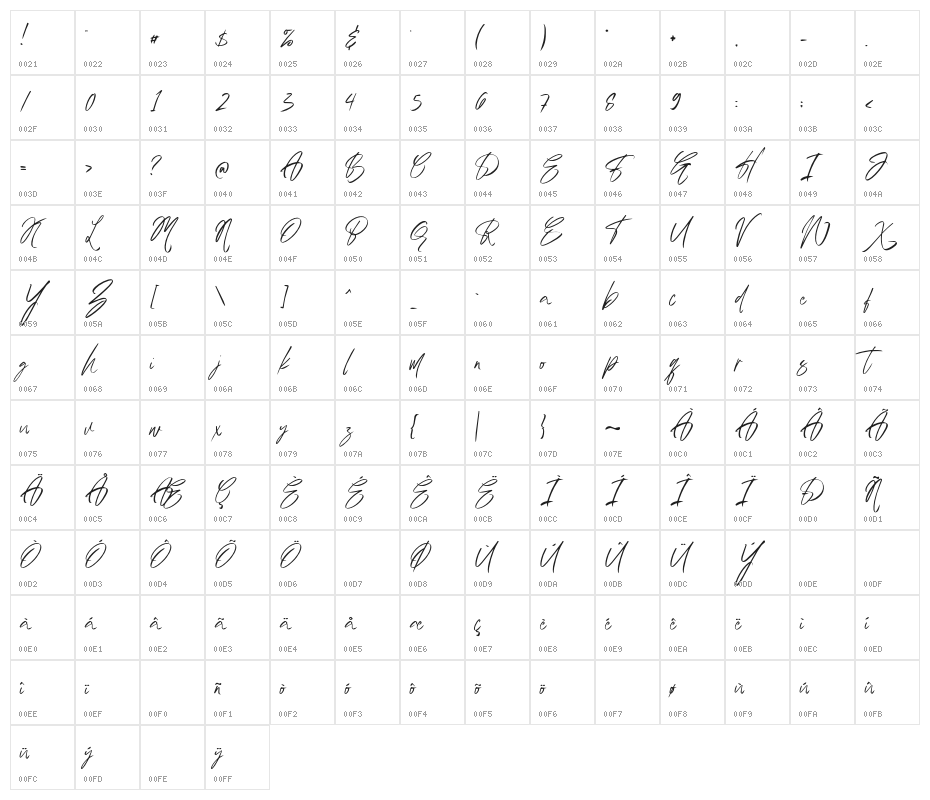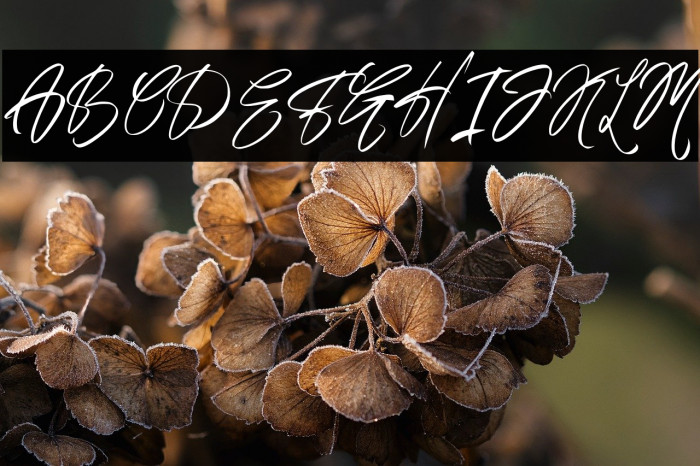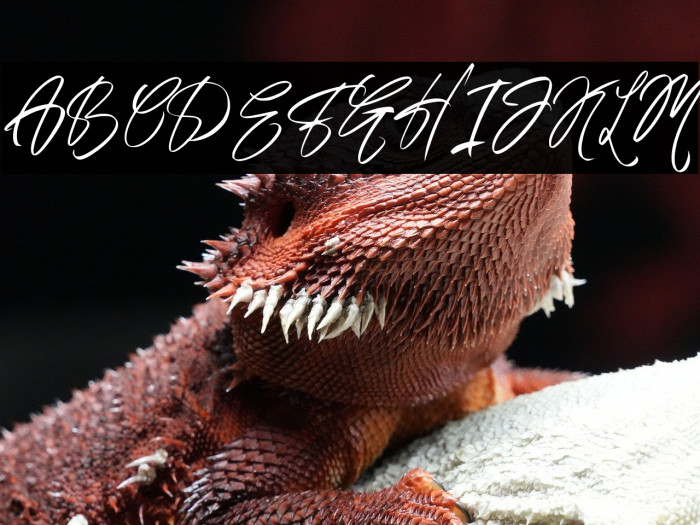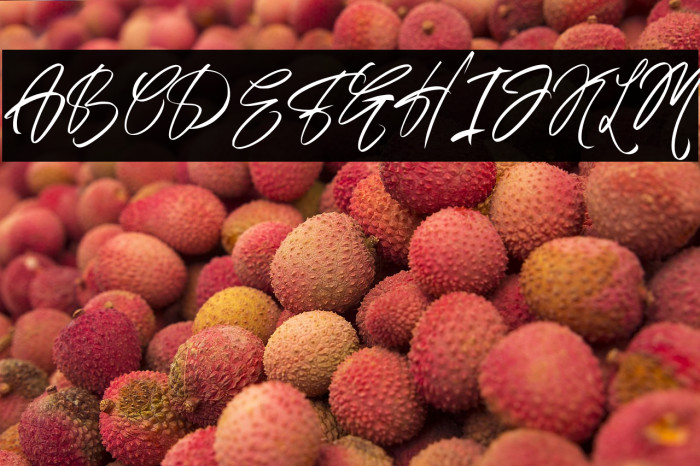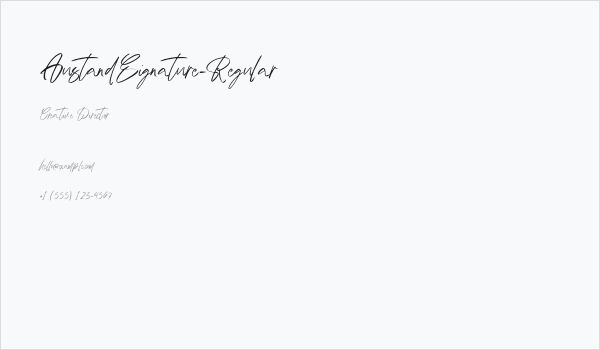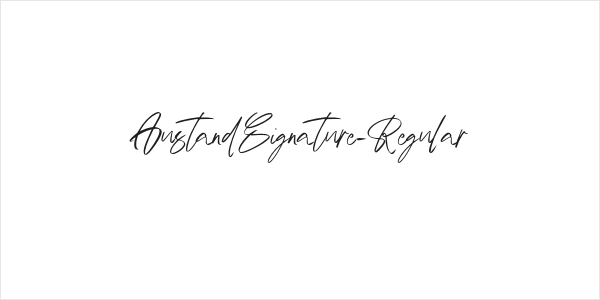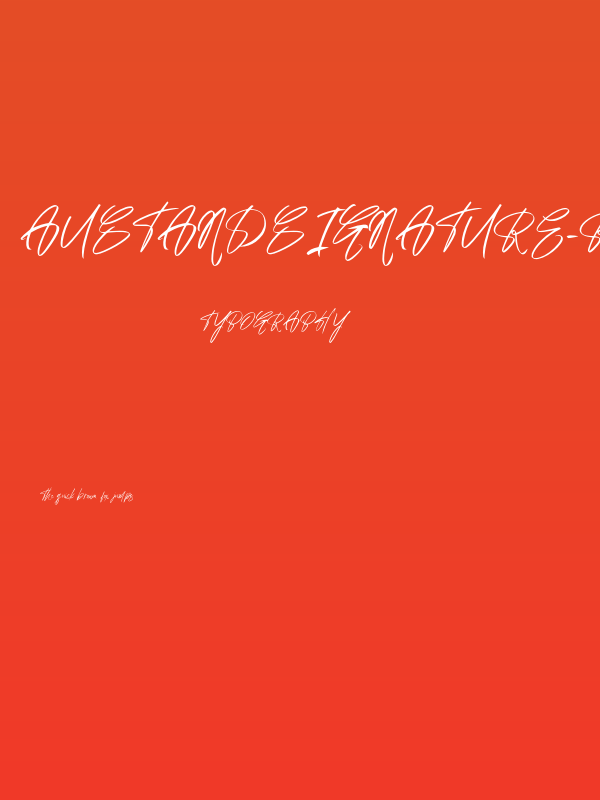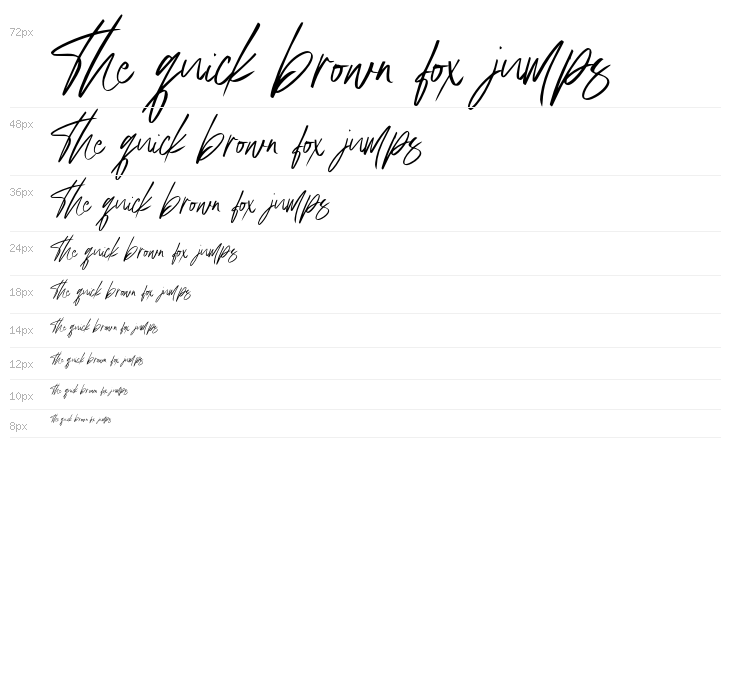
AustandSignature-Regular Font
AustandSignature-Regular Description
This font exudes a dynamic and elegant handwritten style, characterized by its fluid and cursive strokes. The letters are interconnected, creating a seamless flow that mimics natural handwriting. The uppercase letters are bold and prominent, while the lowercase letters maintain a graceful and delicate appearance. The numerals and special characters are crafted with the same attention to detail, ensuring consistency throughout. This font is perfect for adding a personal touch to any design, making it ideal for invitations, branding, and artistic projects.
| Proposed Projects | Ideal for wedding invitations, personal branding, artistic projects, and elegant stationery. |